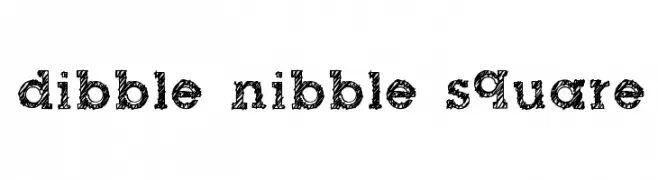
A playful, handwritten font with smooth, rounded strokes and a casual feel.
A playful, handwritten font with smooth, rounded edges and a casual style.
A bold, expressive font with an ink-splatter, brush-stroke style.
A bold, playful handwritten font with dynamic strokes and tight spacing.
A playful, pixelated font with bead-like characters, perfect for retro or tech-themed designs.
Bold, geometric sans-serif font with rounded corners and modern style.
A modern stencil font with geometric shapes and cut-out sections.
A bold, playful font with rounded edges and a modern style.
An elegant, flowing script font with ornate, cursive strokes.
A bold, heart-shaped decorative font with a dripping effect.
A hand-drawn, sketch-like font with irregular strokes and a raw, edgy style.
A bold, playful, hand-drawn font with dynamic, irregular characters.
A bold, hand-drawn font with a dynamic and playful style.
A classic, serif font with bold, sharp serifs and a traditional aesthetic.
A classic serif font with elegant, sharp serifs and a traditional aesthetic.
A bold, modern font with clean lines and balanced spacing.
A modern, geometric font with a futuristic aesthetic.
A playful, hand-drawn font with a casual, sketch-like appearance.
A playful, clear, and slightly italic handwritten font.
A playful, handwritten-style font with rounded edges and a casual feel.
A playful, thin, handwritten font with a slight italic slant.
A playful, handwritten-style font with bold, rounded characters.
A playful, informal handwritten font with uneven strokes and a whimsical feel.
A casual, handwritten style with a playful, italicized appearance.
A bold, playful handwritten font with a casual and friendly style.
A playful, handwritten-style font with a bold, slanted appearance.
A playful, handwritten-style font with bold, uniform strokes.
A bold, italic handwritten font with a playful and dynamic style.
A bold, geometric font with a modern, uniform appearance.